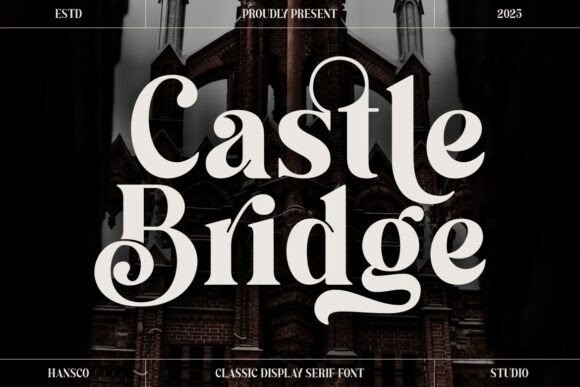
Castle Bridge Font
Castle Bridge Font is a bold and refined display serif font that blends vintage charm with luxurious elegance. Its sophisticated character design features sharp swashes and classic styling, making it an excellent choice for projects that require a high-end, timeless aesthetic. Ideal for branding, logos, packaging, posters, crafts, and more, Castle Bridge offers a range of stylistic alternatives—including uppercase, lowercase, and ligature variations—to give you versatile creative options. The font includes a complete set of characters, numerals, punctuation, and supports multiple languages, ensuring it meets the needs of diverse design applications.